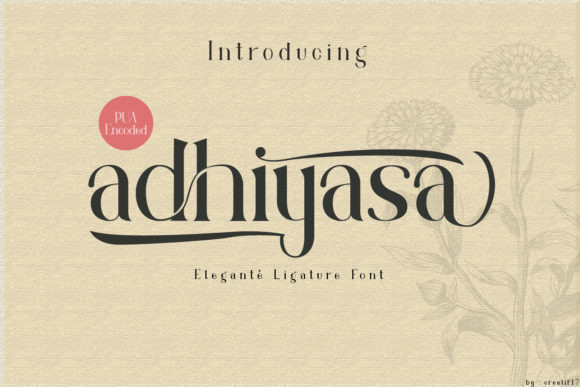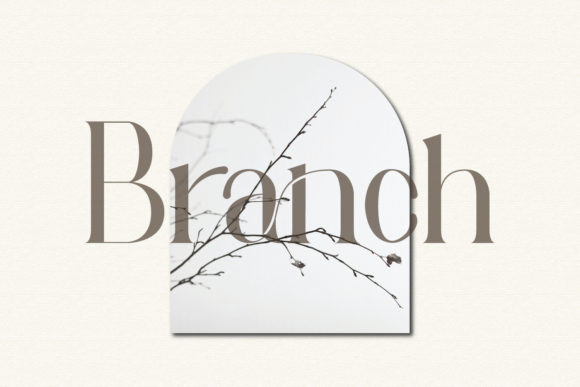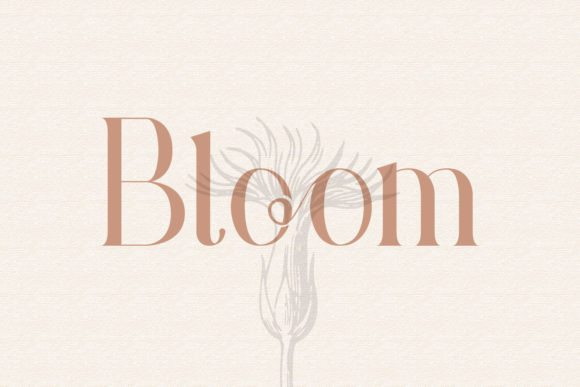
Adhiyasa Font
Adhiyasa is an elegant and delicate serif font. This font was particularly crafted for those who need a beautiful and refreshing look to their designs. Adhiyasa is PUA encoded which means you can access all of the glyphs and swashes with ease!